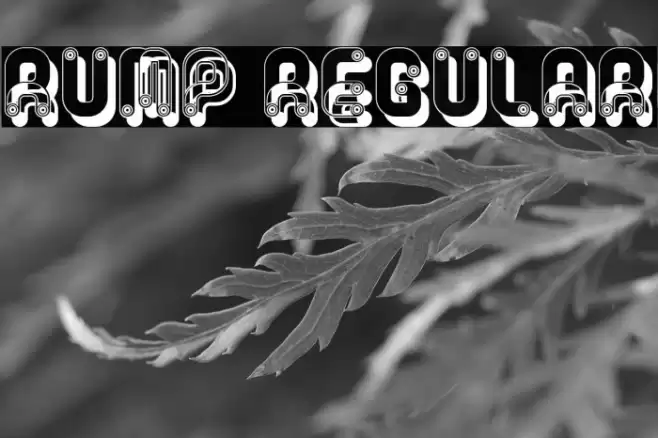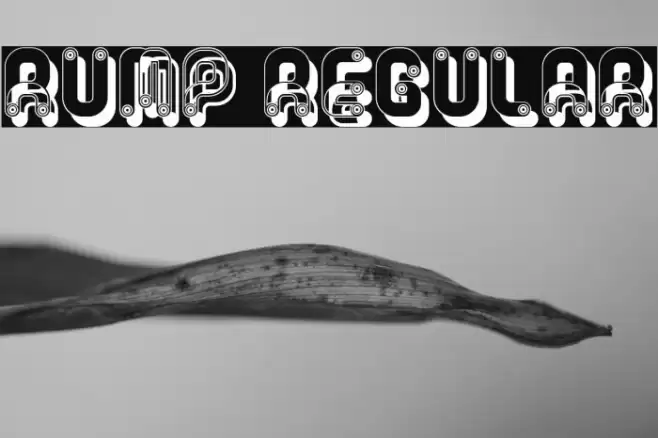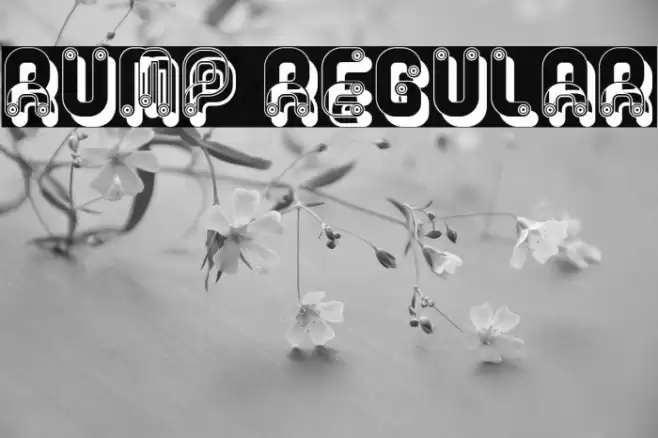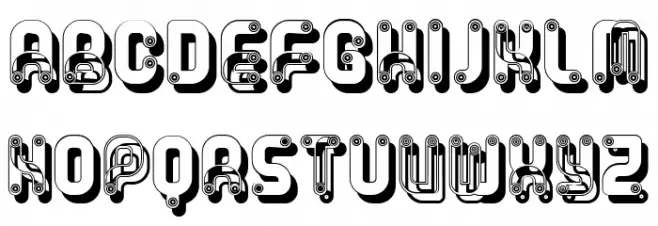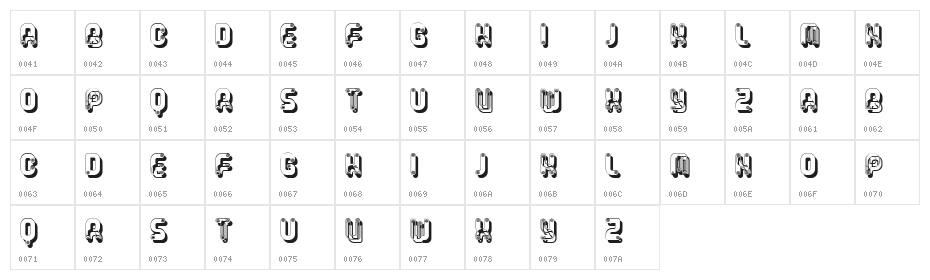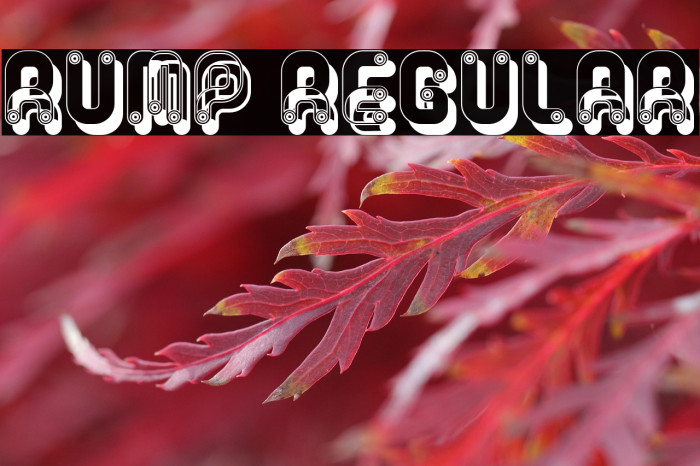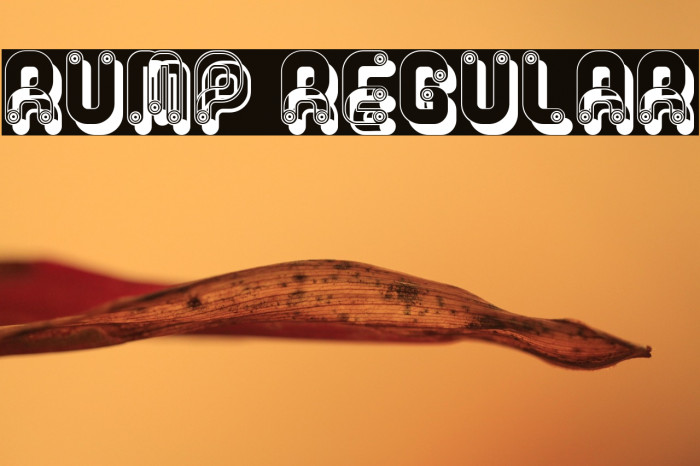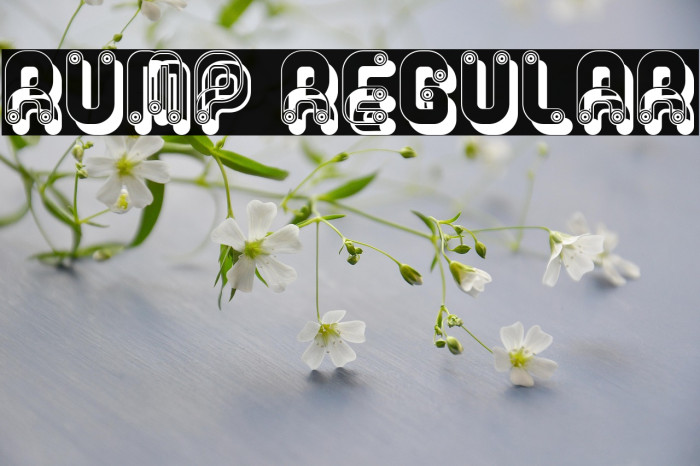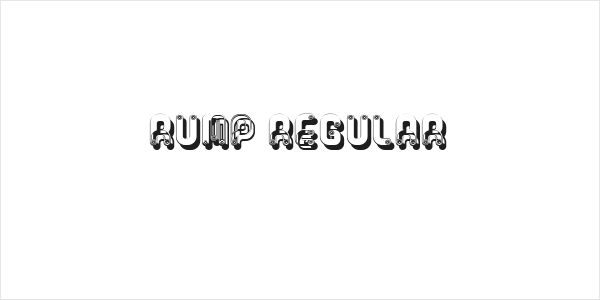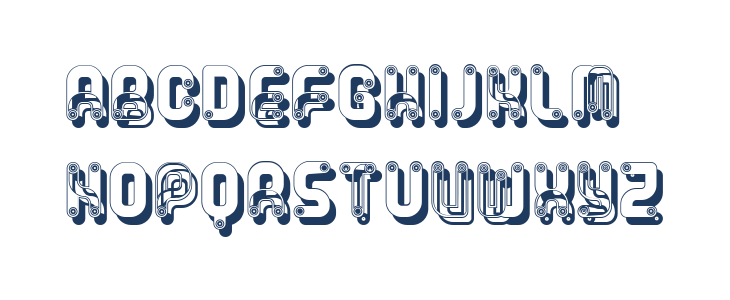
Rump Regular Font
Rump Regular Description
This font features a bold, decorative style with intricate detailing and a three-dimensional appearance. Each character is designed with a unique combination of lines and dots, creating a mechanical and futuristic aesthetic. The letters are uppercase and have a consistent height, with rounded edges that add a playful touch. The design is complex, making it stand out in any project that requires a distinctive and eye-catching typeface.
A bold, decorative font with a mechanical and futuristic style from Decorative fonts.
- Proposed Projects: Ideal for use in posters, branding, and any project that requires a standout, decorative typeface.
- Overall Style: Futuristic, Decorative